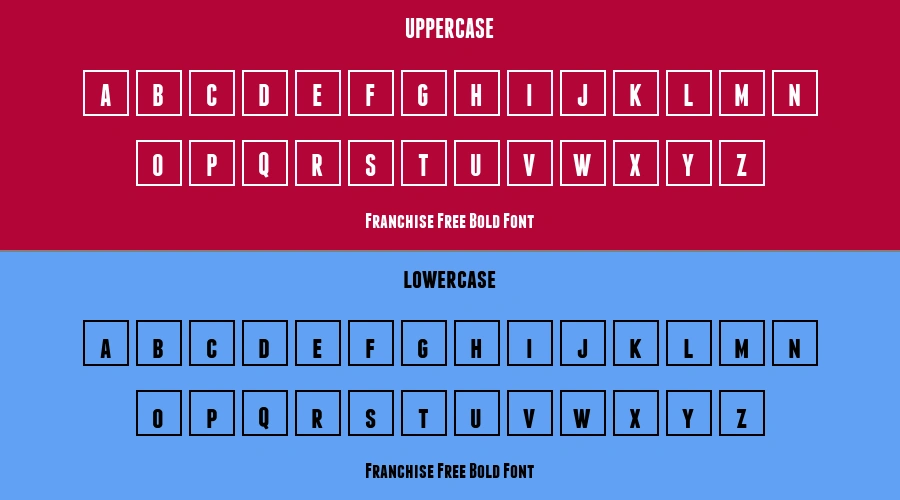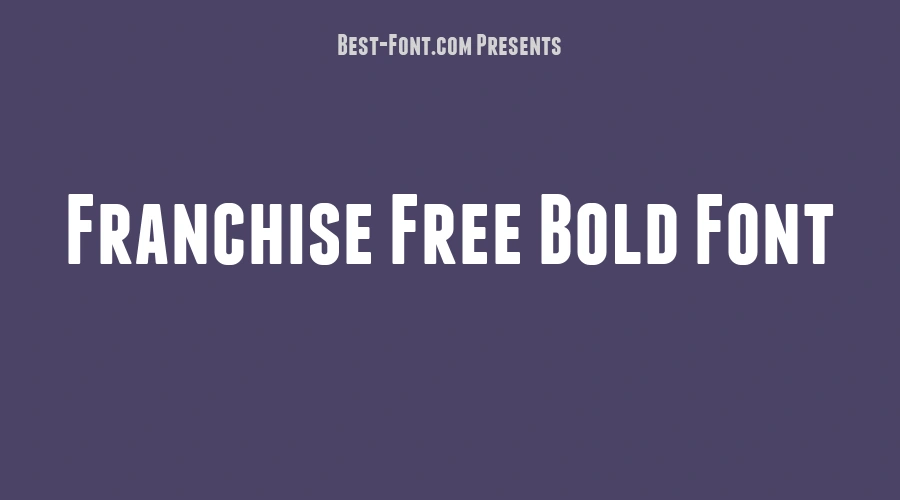
About Franchise Free Bold Font
Franchise Free Bold Font represents a sophisticated approach to type design, balancing refined proportions with typographic texture. Perfect for advertising headers, this font family showcases impressive sophistication and consumer connection throughout its character set. Designers appreciate its versatility and reliability.
Designers will appreciate nuanced touches including precise alignment and initial forms, adding sophistication to any project. These features become apparent in colophons, where archive stability matters most. The careful treatment of crossbar height and design lineage ensures optimal performance.